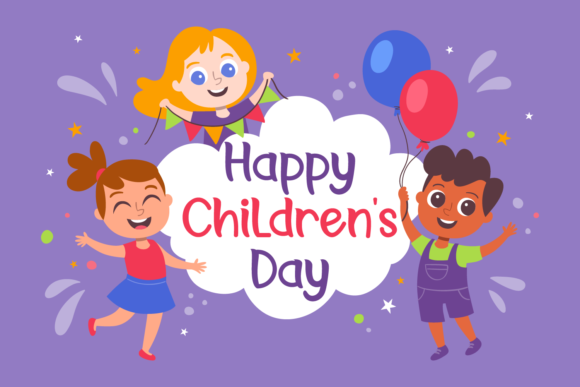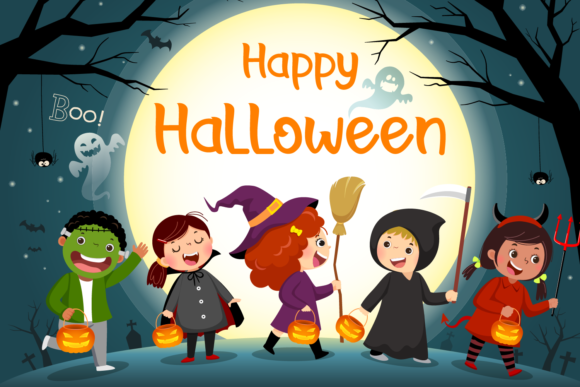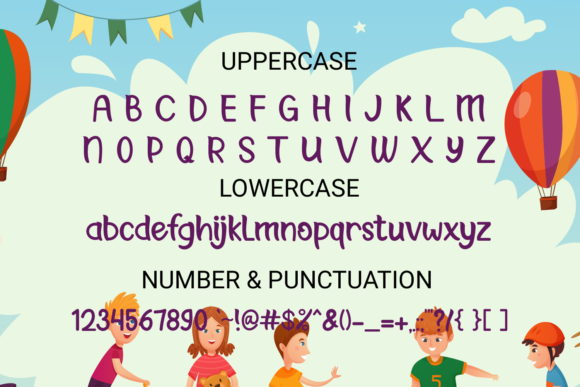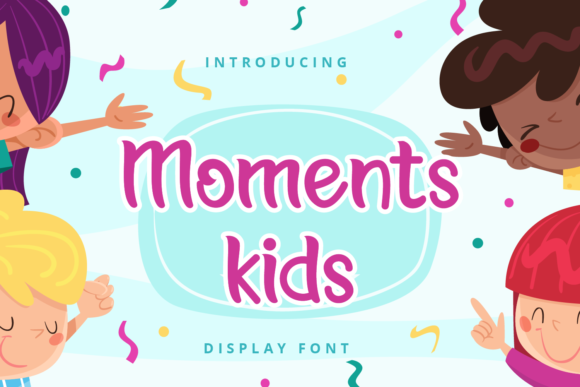
Introduction to Moments Kids Font
Moments kids is a simple and neat lettered display font.
Add this font to your creative ideas and notice how it will make them stand out .
Key Features of Moments Kids Font
Why Choose Moments Kids Font?
Moments Kids Font offers exceptional quality and versatility, making it a valuable addition to your design toolkit. Whether you’re creating for personal projects or commercial use, Moments Kids Font delivers professional results.